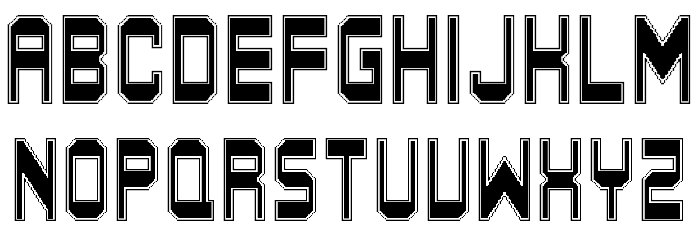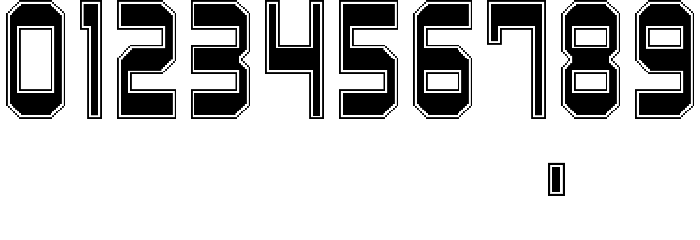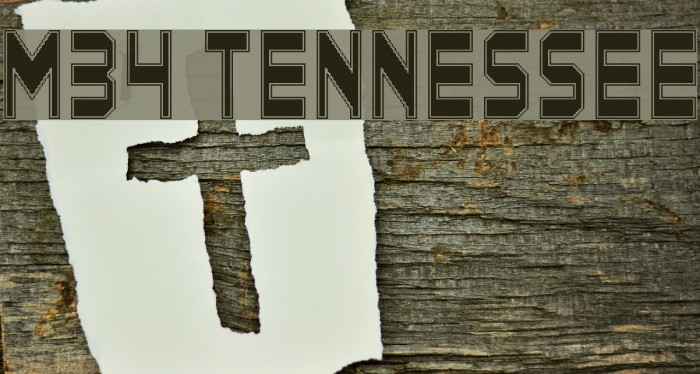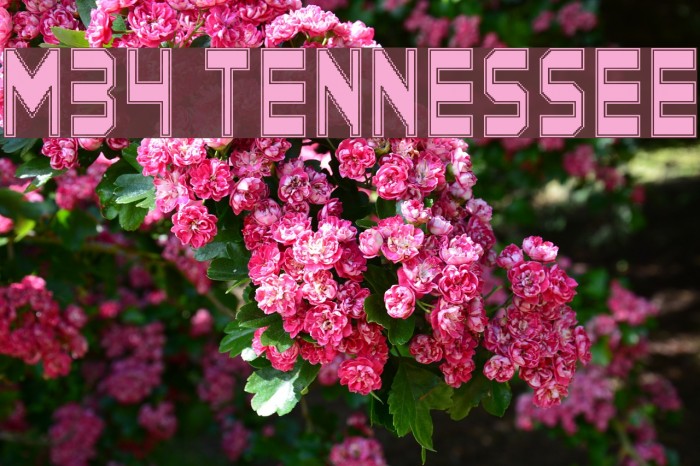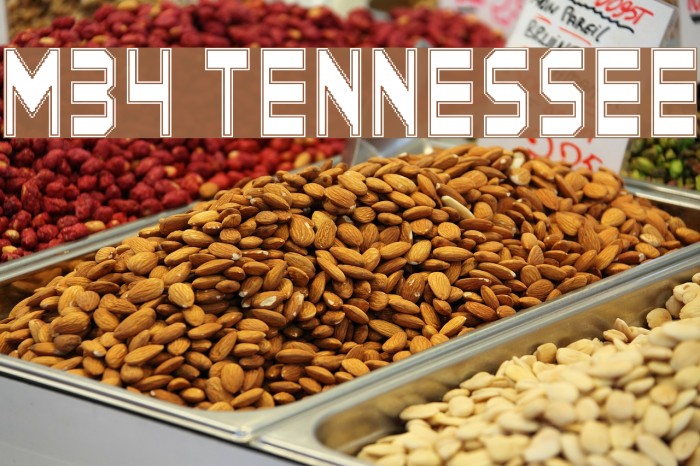
M34_TENNESSEE Font
This font features a bold, geometric design with a strong emphasis on angular shapes and clean lines. The characters are outlined, creating a striking contrast between the filled and unfilled spaces. The uppercase letters are uniform in height, while the numbers maintain a consistent style that complements the alphabet. The font's structured appearance gives it a modern and industrial feel, making it suitable for attention-grabbing designs. The spacing between characters is tight, enhancing its compact and cohesive look.
A bold, geometric font with outlined characters and a modern, industrial style.
- Proposed Projects: Ideal for sports team branding, poster headlines, and urban-themed graphic designs.
- Category: Decorative/Display
- Character Spacing: Tight
- Contrast: High